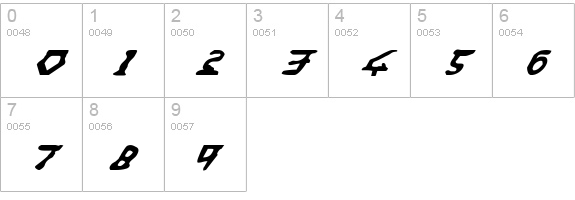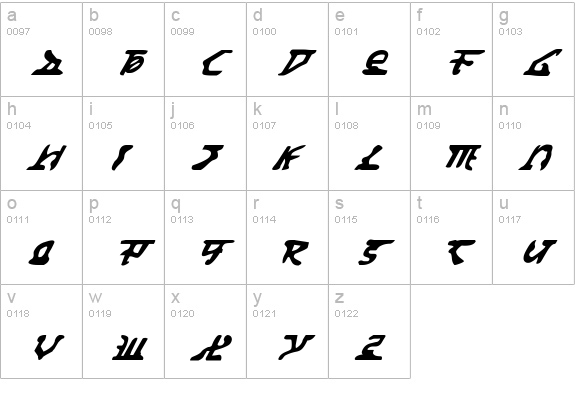
Homeworld Translator Italic is a distinctive, italic variant in the Homeworld typeface family \xE2\x80\x94 well suited to design and typography projects.
The Homeworld Translator Italic font is a stunning and sleek typeface that brings a futuristic and otherworldly vibe to any design project. Its italicized style adds a touch of elegance and sophistication, making it perfect for conveying a sense of mystery and adventure. Whether you're working on a science fiction novel, a space-themed poster, or a futuristic website, this font will surely elevate your work to new heights. Best of all, the Homeworld Translator Italic font is available for free download at FontsMarket.com. Simply visit the website to access this incredible font and add a touch of intergalactic flair to your projects. Don't miss out on this opportunity to enhance your designs with this unique and captivating typeface. Download now and let your creativity soar to new dimensions!